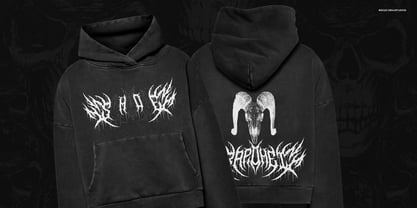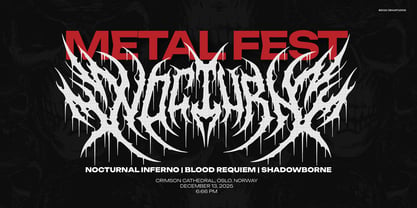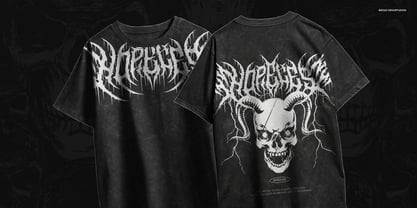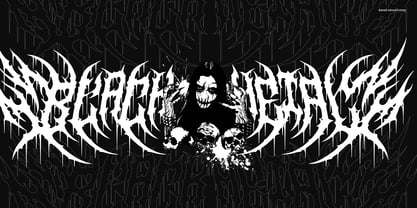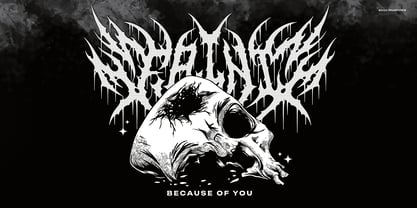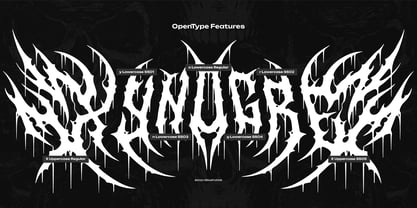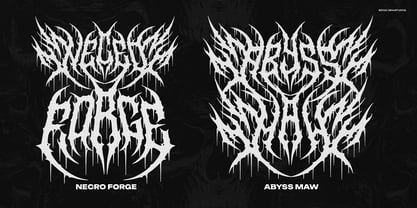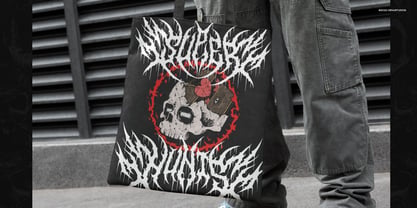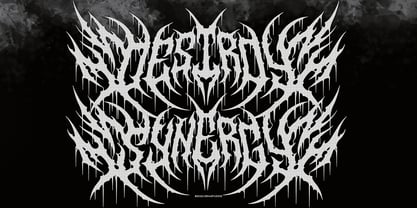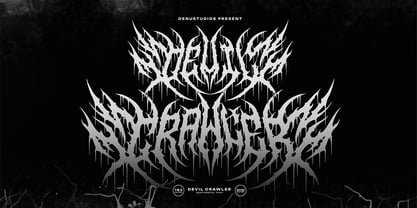
Devil Crawler
A família de fontes Devil Crawler foi desenhada por Dede Nugraha e publicada pela Denustudio. Devil Crawler contém 1 estilos. Saiba mais sobre esta família
Devil Crawler | Death Metal Font, from Denustudios, suitable for any projects such as: logos, branding projects, homeware designs, product packaging, mugs, quotes, posters, shopping bags, t-shirts, book covers, name card, invitation cards, greeting cards, label, photography, watermark, special events, and all your other lovely projects that need Death Metal Font a taste.
• Alternate and Ligature